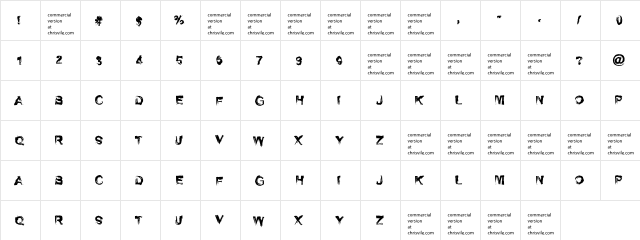
Self Righteousness Regular
Design Context for Self Righteousness Typeface
Self Righteousness is a composed and adaptable typeface that performs quietly and consistently across a wide range of design contexts.